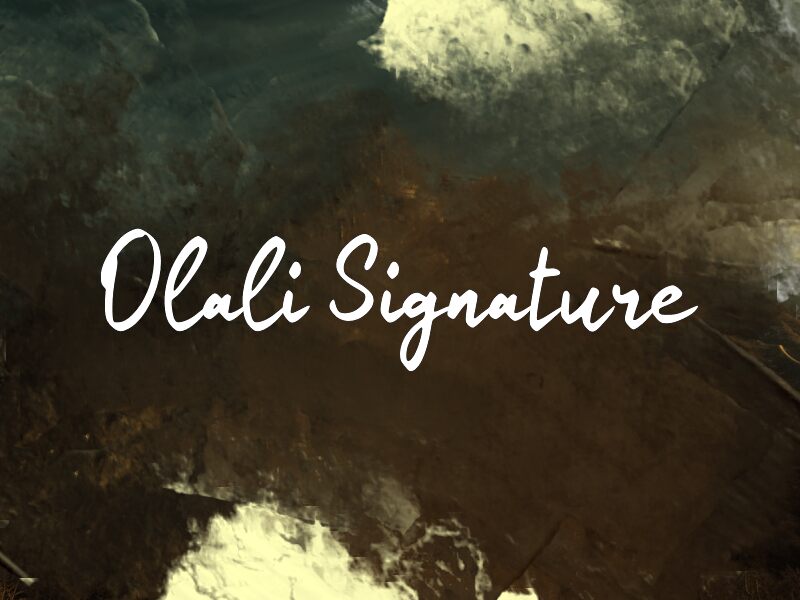
Olalia Signature font by wep is a handwritten typeface with a cursive design and artistic style. It’s a calligraphic font with the natural and smooth lines only a handwriting font would have. An elegant and dynamic modern font, Olalia is fluid and effortlessly sophisticated, which makes it adaptable to a variety of themes and what they demand.
Olalia Signature takes your branding designs and advertising projects to a whole new level. Use it for signage, business cards, and invitations for a fresh display. It can also be used for magazines, apparel items, and packaging designs.
Olalia Signature is a beautifully crafted free font that brings a touch of elegance and sophistication to any design project. This script font features fluid lines and a natural handwriting style, making it perfect for invitations, branding, and stylish graphic designs. With its unique charm, Olalia Signature can elevate your creative works, providing a personal and professional feel.